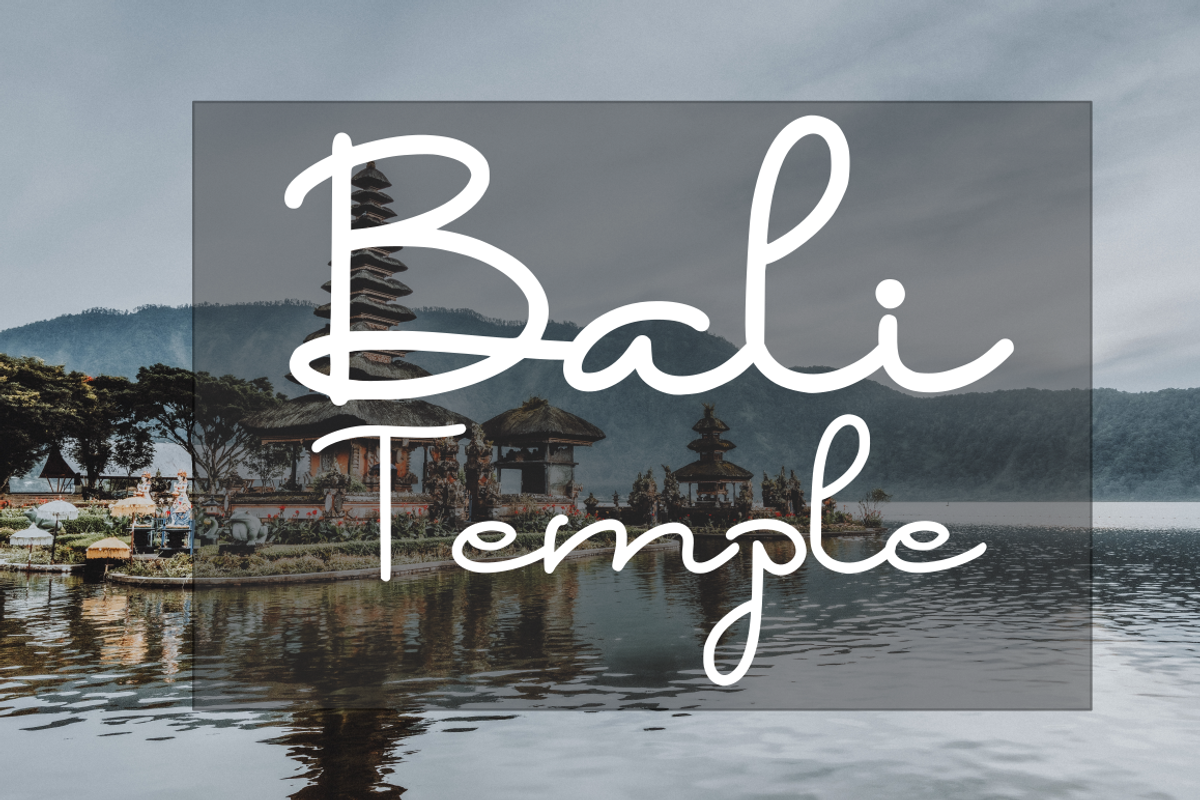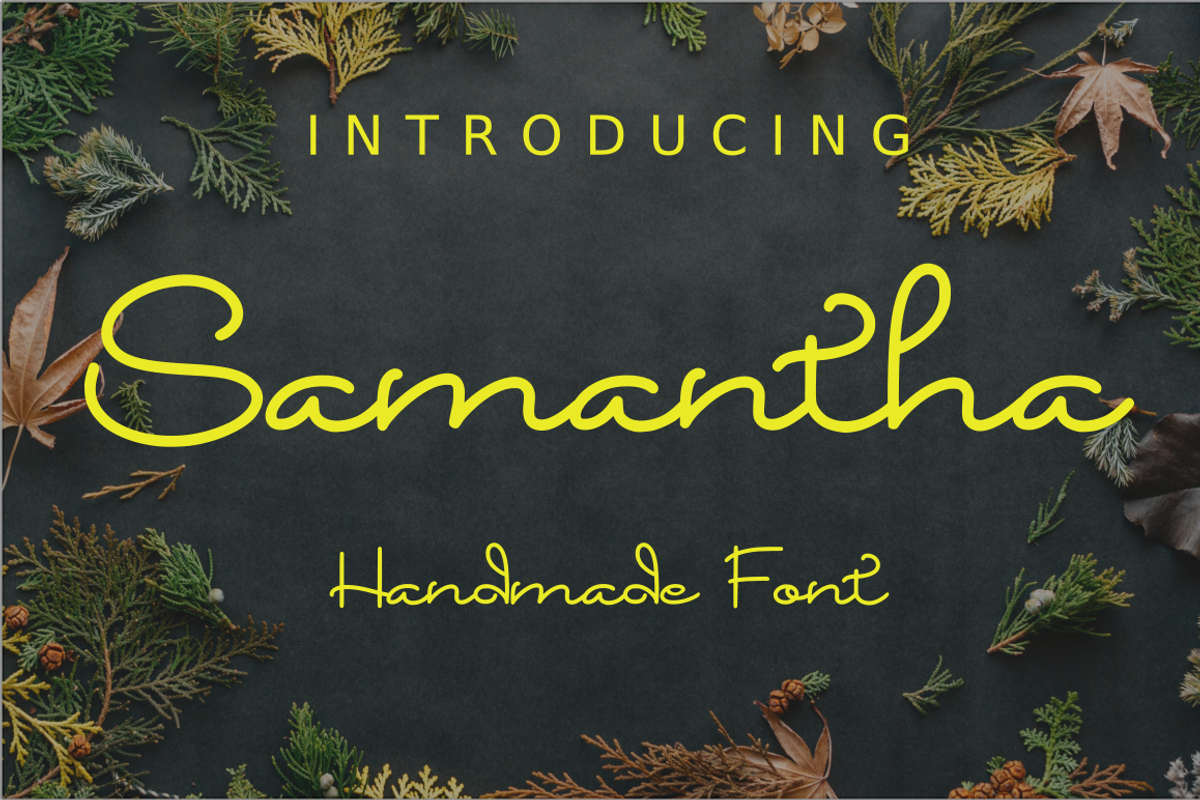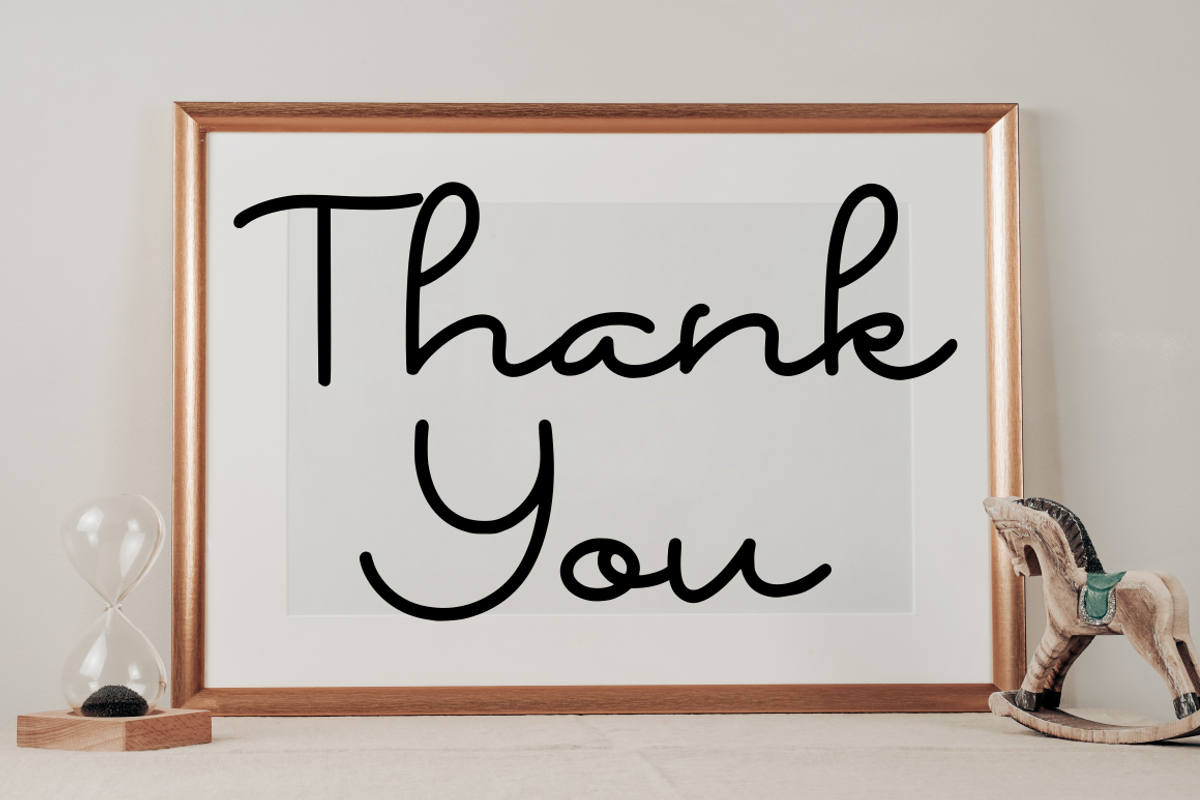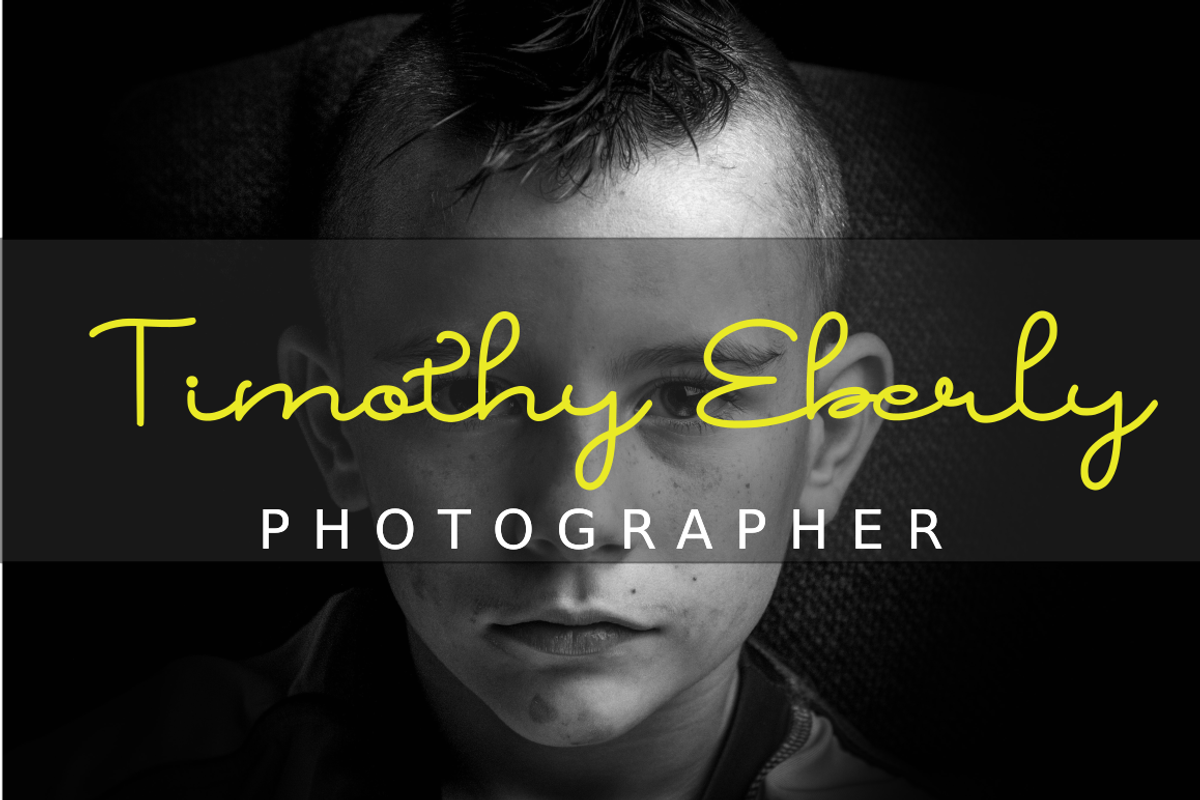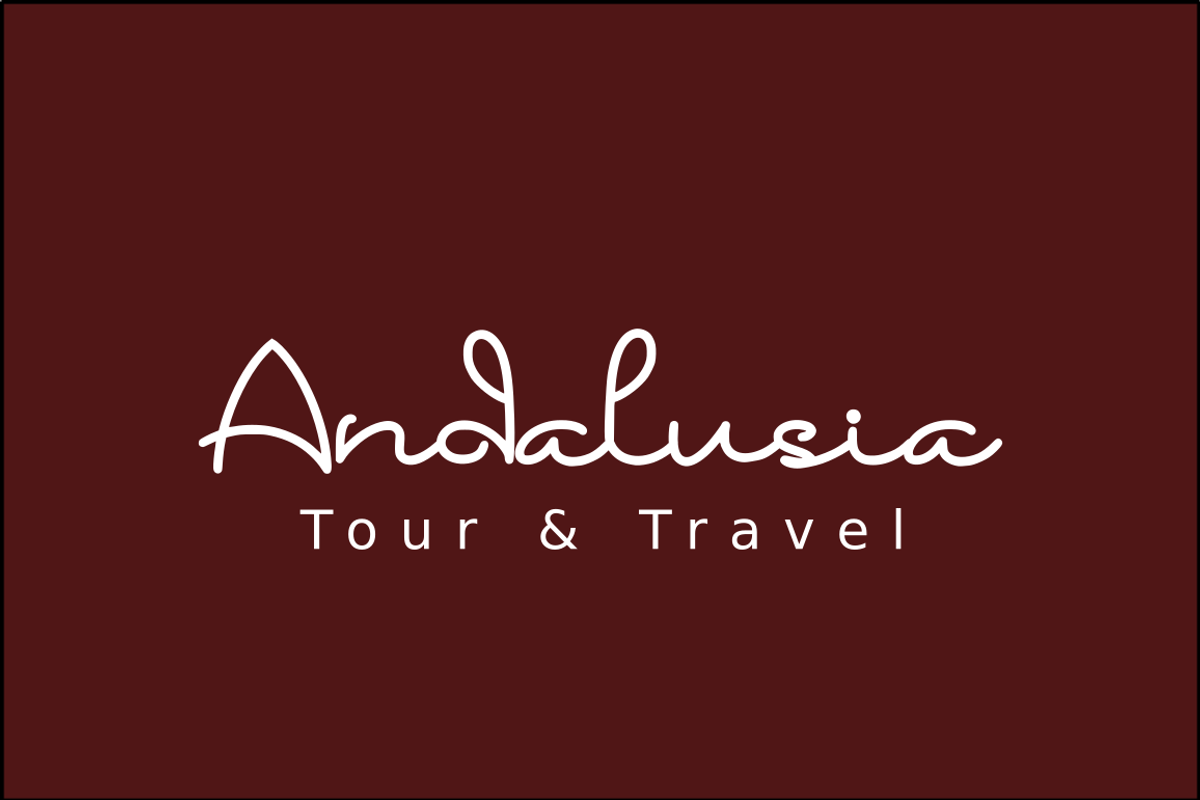
Samantha - a Monoline Font
Samantha is Handwritten font. Samantha is perfect for branding, logo, watermark, business card, clothing, magazine, web, and any other design projects. looks Eye Catching & Naturally.